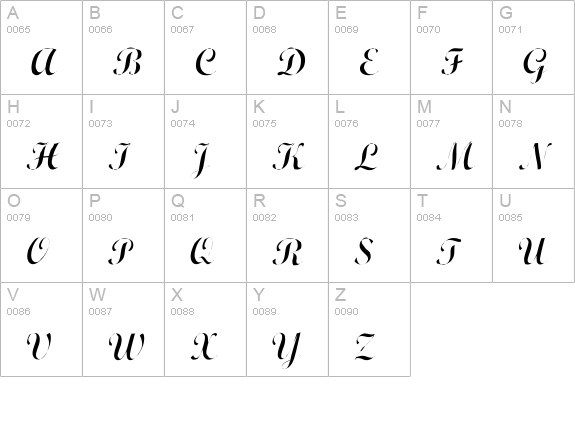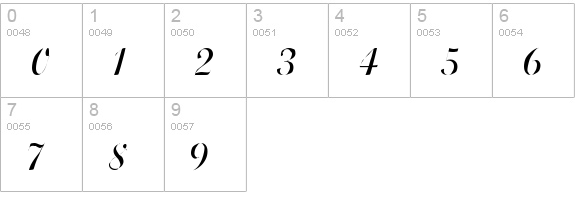
Wrexham Script Light is a refined, elegant variant in the Wrexham typeface family \xE2\x80\x94 well suited to elegant body text, refined sub-headings, and luxury branding.
Wrexham Script Light font is a delicate and elegant typeface that exudes a sense of sophistication and charm. With its graceful curves and beautifully designed letterforms, this font is perfect for adding a touch of elegance to any project. The light weight of this font adds a subtle and airy quality, making it ideal for use in various design applications such as invitations, wedding stationery, branding materials, and more. Its versatility allows it to be used in both formal and casual designs, adding a touch of class to any project. Wrexham Script Light font is freely available to download at FontsMarket.com. This means that you can easily access and use this font without any cost. Whether you are a professional designer or a hobbyist, this font offers you the opportunity to enhance your creative projects without any financial burden. The clean and legible letterforms of Wrexham Script Light font ensure readability at different sizes, making it suitable for both print and digital applications. Its smooth lines and well-balanced proportions create a harmonious and visually pleasing aesthetic, making it a versatile choice for various design needs. This font is designed to effortlessly convey elegance and sophistication, making it an excellent choice for wedding invitations, greeting cards, and other special occasions. Its timeless appeal ensures that your designs will stand the test of time and leave a lasting impression on your audience. Whether you are designing for personal or professional use, Wrexham Script Light font offers a beautiful and free option to elevate your projects. Download it today at FontsMarket.com and unlock the endless possibilities it brings to your design toolbox.